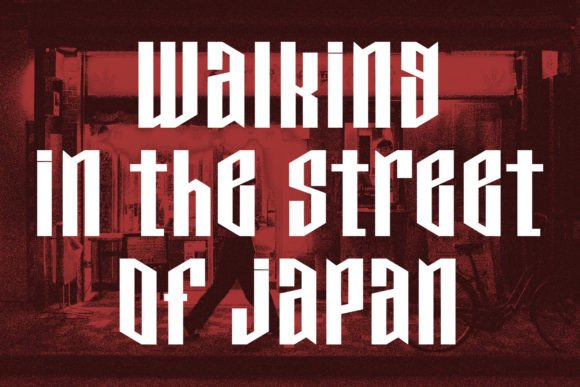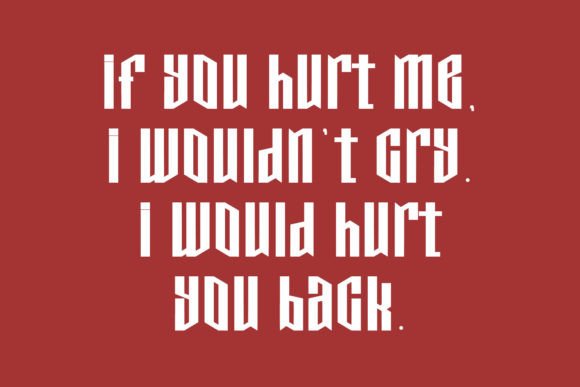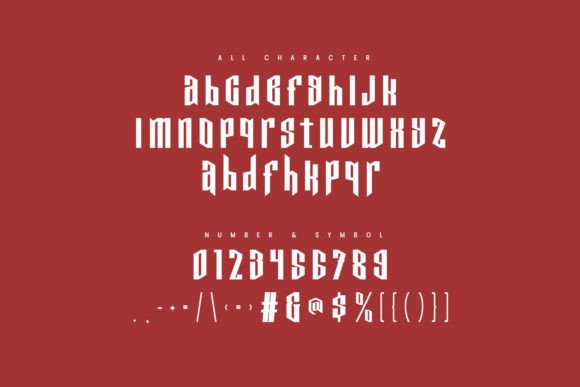
Introduction to Kelahi Font
Introducing Kelahi, a decorative display font with bold strokes and playful characters, including some ligatures for added flair.
With support for over 100 languages, itโ€™s versatile for various design needs Ideal for logos, social media, movie titles, book titles, and both short and long texts.
Key Features of Kelahi Font